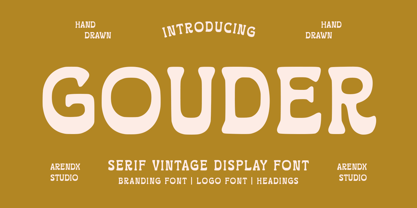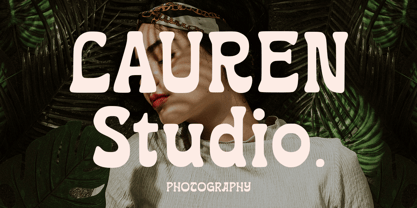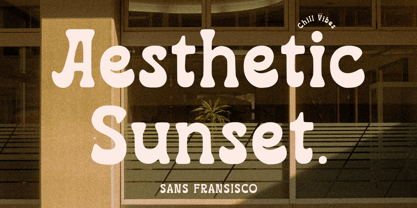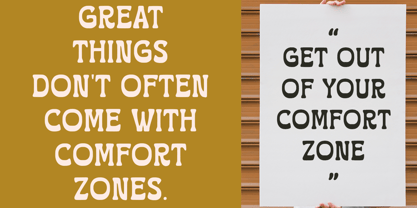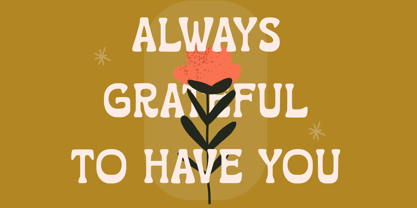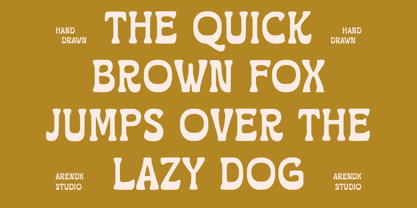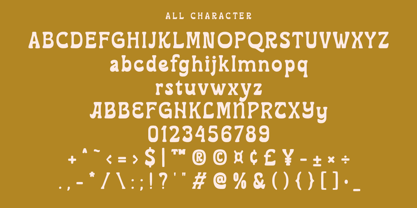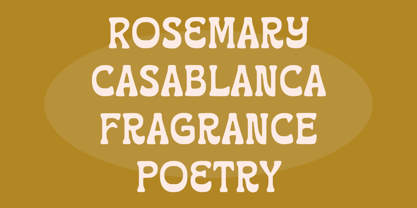
Gouder
by Arendxstudio
The Gouder Font Family was designed by Asep Rendi and published by Arendxstudio. Gouder contains 1 styles.
Gouder is a bold and quirky serif display font with a vintage twist, crafted by Arendxstudio. Inspired by hand-drawn lettering and retro aesthetics, Gouder features playful curves and strong shapes that give it a unique character. It’s ideal for branding, logos, signage, packaging, and editorial headlines.
This font combines a nostalgic feel with modern usability, making it perfect for standout designs that demand attention. Whether you’re working on a vintage-themed project or looking to inject some personality into your design, Gouder brings charm, boldness, and a hand-crafted feel to every layout.
Features : Uppercase and lowercase characters
Numerals and Punctuation (OpenType Standard)
Accents (Supports Multilingual Characters)